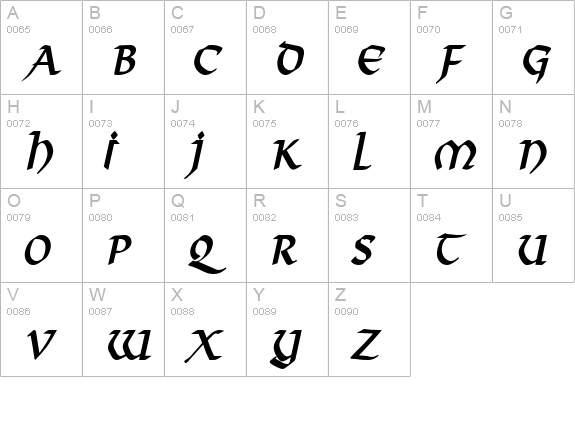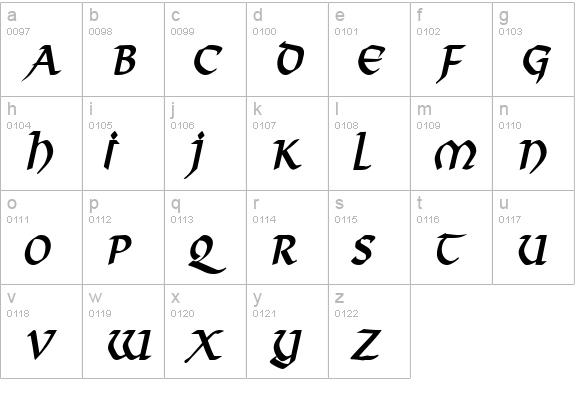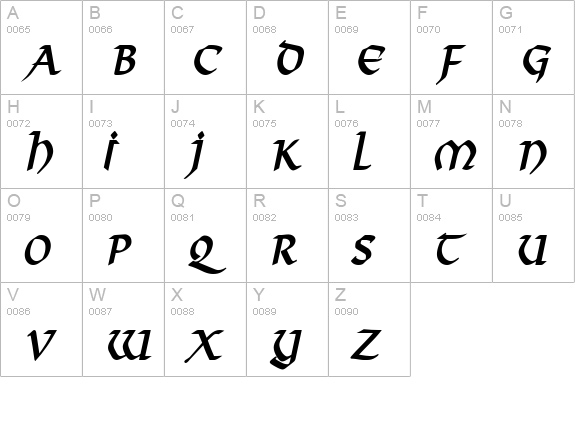
Valhalla Condensed BoldItalic is a distinctive, condensed-width variant in the Valhalla typeface family \xE2\x80\x94 well suited to design and typography projects.
Valhalla Condensed BoldItalic font is a stunning display typeface that exudes power and elegance. With its bold and italicized design, this font is perfect for making a statement in any design project. The condensed nature of Valhalla Condensed BoldItalic adds a touch of sophistication, making it ideal for headlines, logos, and branding materials. Its strong and dynamic letterforms are sure to grab attention and leave a lasting impression. What makes Valhalla Condensed BoldItalic even more appealing is that it is available for free download at FontsMarket.com. This means that you have the opportunity to enhance your designs with this remarkable font without any cost. Whether you're a professional graphic designer or an enthusiast looking to add a touch of uniqueness to your personal projects, Valhalla Condensed BoldItalic is a must-have font. Its versatility and freely available nature make it a valuable asset for any creative endeavor. Don't miss out on the opportunity to elevate your designs with this exceptional typeface. Download Valhalla Condensed BoldItalic now from FontsMarket.com and unleash your creativity.